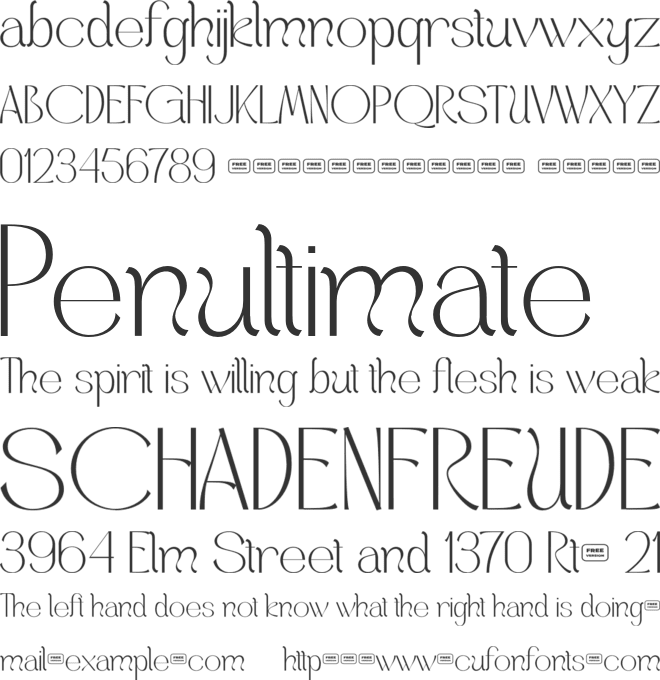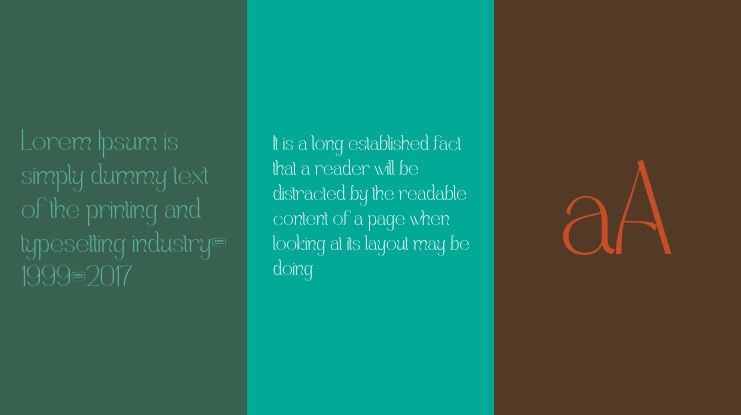
Remount Free Trial Font
Elegant Serif - Remount is a sophisticated, high-contrast serif typeface designed to add a touch of luxury and refinement to any project. Its thin, tall structure, combined with beautifully flowing curves and elegant swashes, creates a stunning visual appeal that is both timeless and contemporary.
Whether you're working on high-end fashion branding, wedding invitations, or editorial design, Remount is the perfect choice for making a memorable and stylish statement.